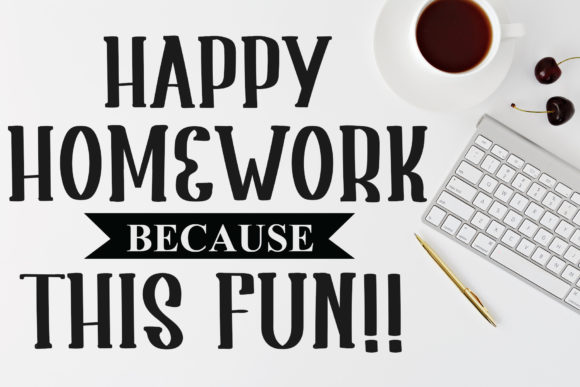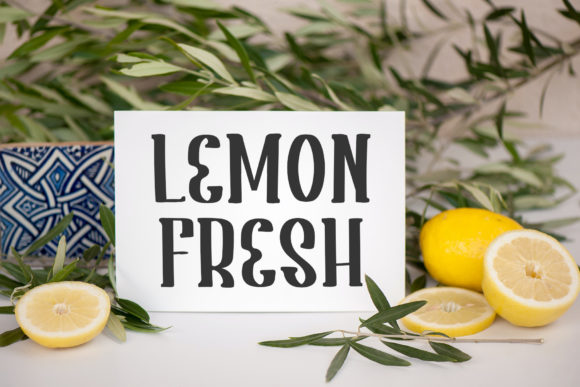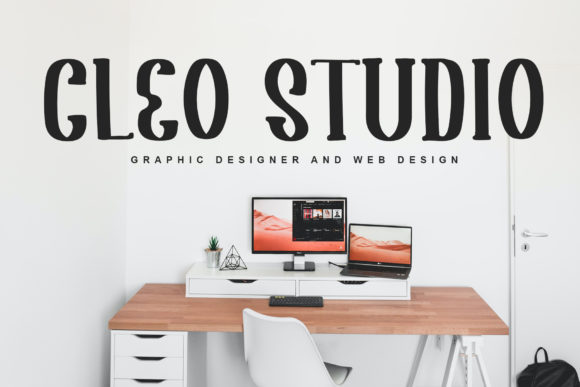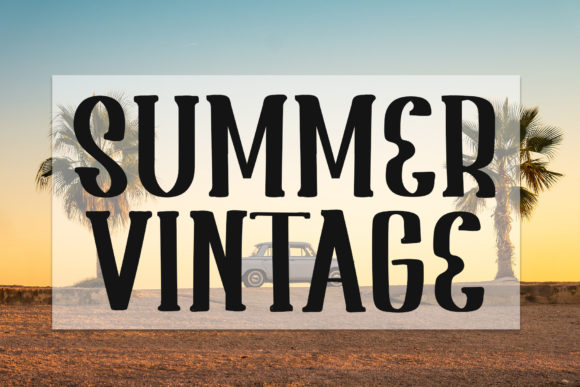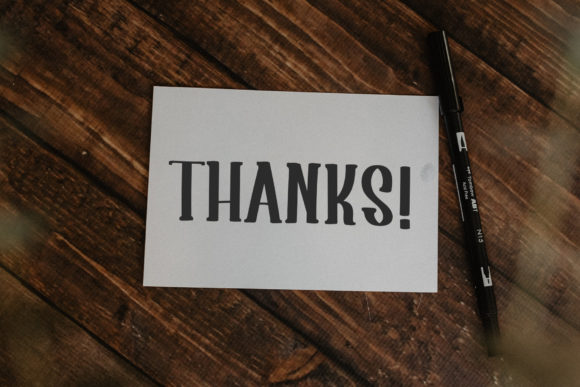
Introducing Handmade Compact Font: Elevate Your Designs with a Unique Slab Serif Style
In the world of typography, a well-crafted font can make all the difference in elevating your designs from ordinary to extraordinary. If you’re a designer or crafter looking for a unique and versatile font to make your projects stand out, look no further than Handmade Compact Font. This beautiful and neat slab serif font is perfect for a wide range of applications, from wall displays and wedding invitations to social media posts and product packaging.
What Makes Handmade Compact Font Special?
Handmade Compact Font boasts a distinctive slab serif style that adds a touch of modernity and sophistication to any design. Its characters are carefully crafted to be both elegant and legible, making it an excellent choice for a variety of projects. Whether you’re looking to create eye-catching logos, advertisements, or product designs, this font is sure to impress.
One of the key benefits of Handmade Compact Font is its versatility. Its clean and modern design makes it suitable for a wide range of applications, including:
- Wall displays and signage
- Advertisements and marketing materials
- Product packaging and design
- Labels and stickers
- Photography and watermarks
- Invitations and event materials
- Stationery and paper products
Why Choose Handmade Compact Font?
With so many fonts to choose from, why should you choose Handmade Compact Font? Here are just a few reasons:
- Unique and distinctive style: Handmade Compact Font boasts a unique slab serif style that will set your designs apart from the crowd.
- Highly legible: Despite its elegant design, Handmade Compact Font is highly legible, making it perfect for body text and captions.
- Versatile: This font is suitable for a wide range of applications, from digital designs to print materials.
Tips for Using Handmade Compact Font
To get the most out of Handmade Compact Font, here are a few tips:
- Use it as a headline font: Handmade Compact Font is perfect for headlines and titles, where its unique style can really shine.
- Pair it with a sans serif font: For body text, consider pairing Handmade Compact Font with a clean sans serif font to create visual interest.
- Experiment with colors and textures: Don’t be afraid to get creative with colors and textures to add depth and interest to your designs.
In conclusion, Handmade Compact Font is a beautiful and versatile slab serif font that’s perfect for designers and crafters looking to elevate their designs. With its unique style, high legibility, and versatility, this font is sure to become a go-to choice for a wide range of applications. So why wait? Download Handmade Compact Font today and start creating stunning designs that stand out from the crowd!